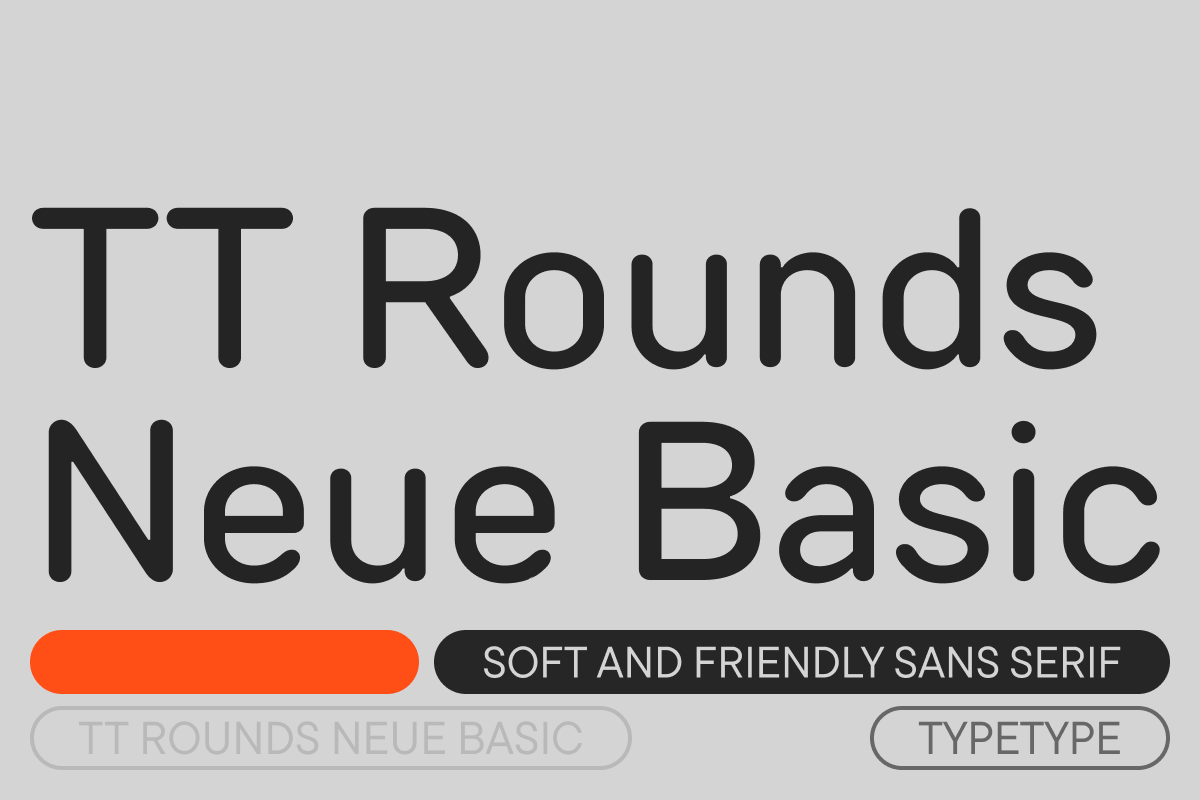
TT Rounds Neue Thin
TT Rounds Neue is a sans serif with rounded forms. Its character is soft and friendly. In its lighter font styles, the typeface looks minimalistic and neutral: rounded stroke ends become almost invisible, and fluid lines come into focus. The bold font styles make TT Rounds Neue puff up and achieve maximum roundness, displaying childish traits.